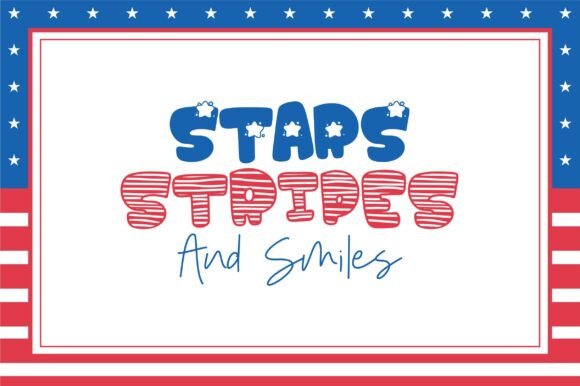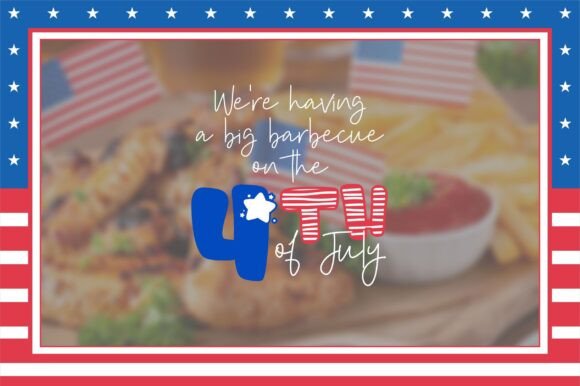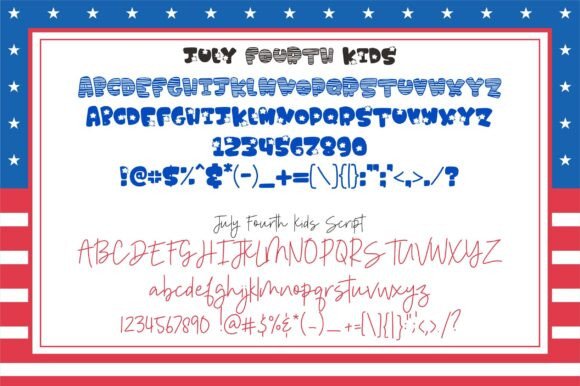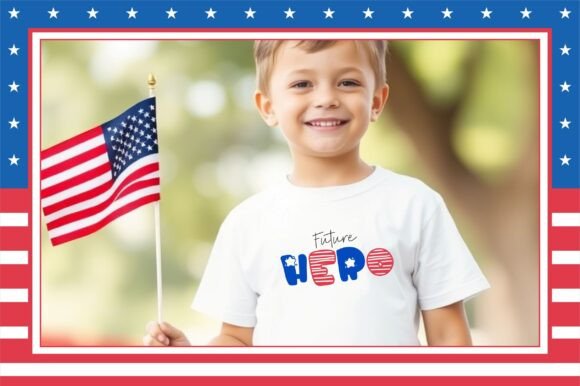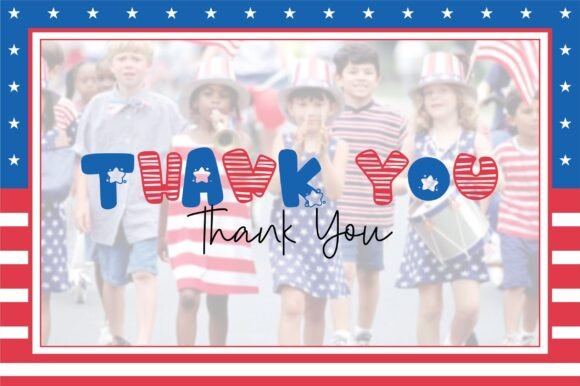
Introduction to July Fourth Kids Font Font
Fonts play a crucial role in design, and the July Fourth Kids Font font is a typeface that brings both character and versatility to any project. Whether you’re working on a branding project, a website, or a print design, the July Fourth Kids Font font offers a unique style that can elevate your work.
Bring the spirit of celebration to your designs with July Fourth Kids β Font Duo.
This playful and decorative font is inspired by the American flag and is perfect for all your patriotic projects The bold display style features chunky, rounded letters decorated with stars and stripesβmaking it a showstopper for any 4th of July, Veterans Day, or Memorial Day celebration.
The July Fourth Kids Font font is more than just a typeface β it’s a design tool that helps you communicate your message with style and clarity. Its unique character set and versatile design make it suitable for a wide range of applications, from elegant invitations to bold headlines.
With its carefully crafted letterforms and balanced proportions, the July Fourth Kids Font font ensures readability and visual appeal across all mediums.
What makes July Fourth Kids Font font special?
The July Fourth Kids Font font stands out with its unique design, exceptional readability, and versatility across various design applications.